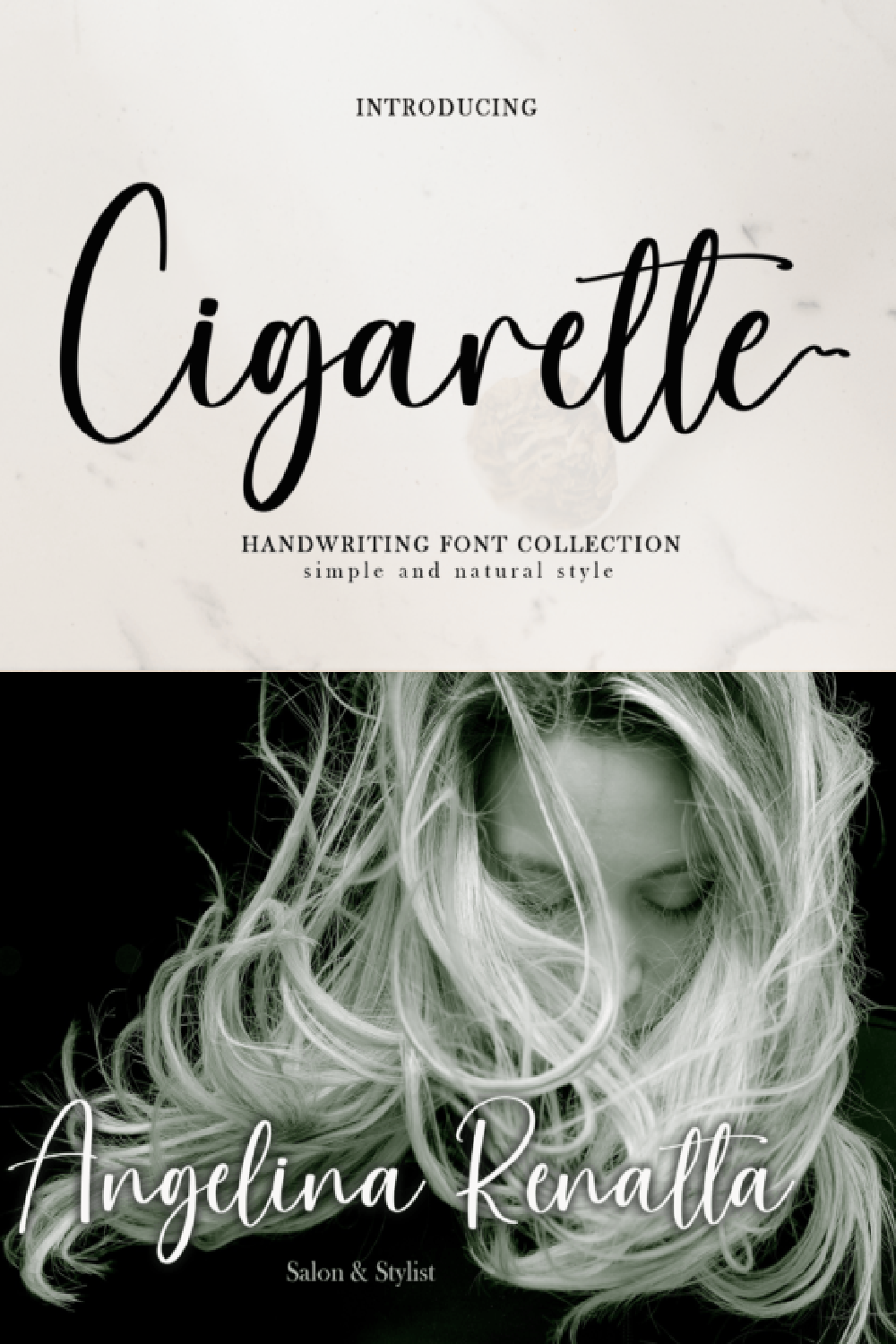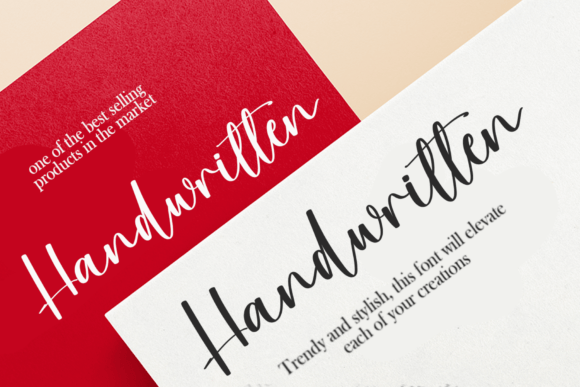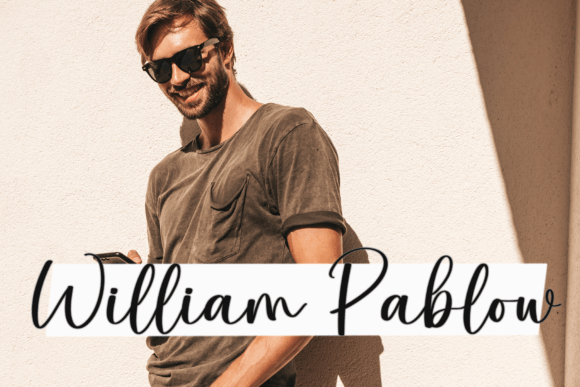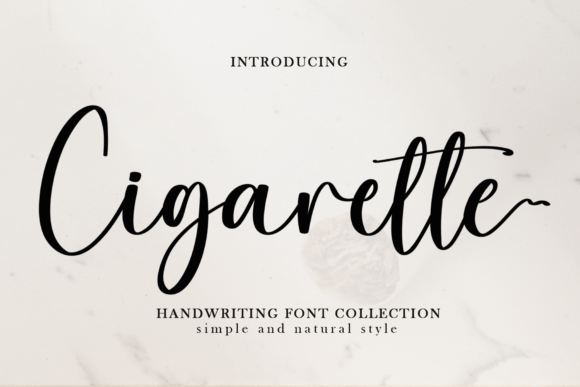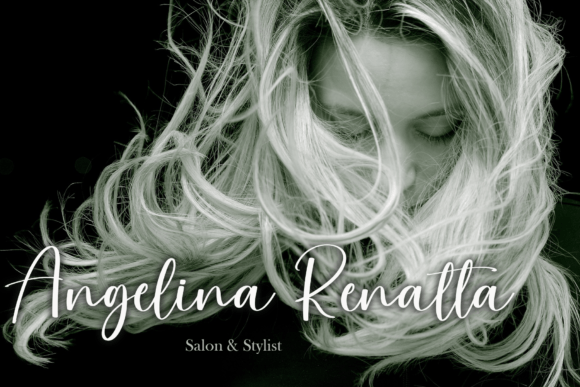
Cigarette Font: Stylish Handwritten Script for Elegant Branding
About the Cigarette Font
Let us introduce you to Cigarette Font, where timeless design meets modern craftsmanship. Cigarette is a stylish handwritten font with a contemporary atmosphere and impeccable form, inspired by a timeless classic calligraphy. Balanced and varied, this font was designed to enhance the beauty of your projects.
Cigarette Font Usage Examples